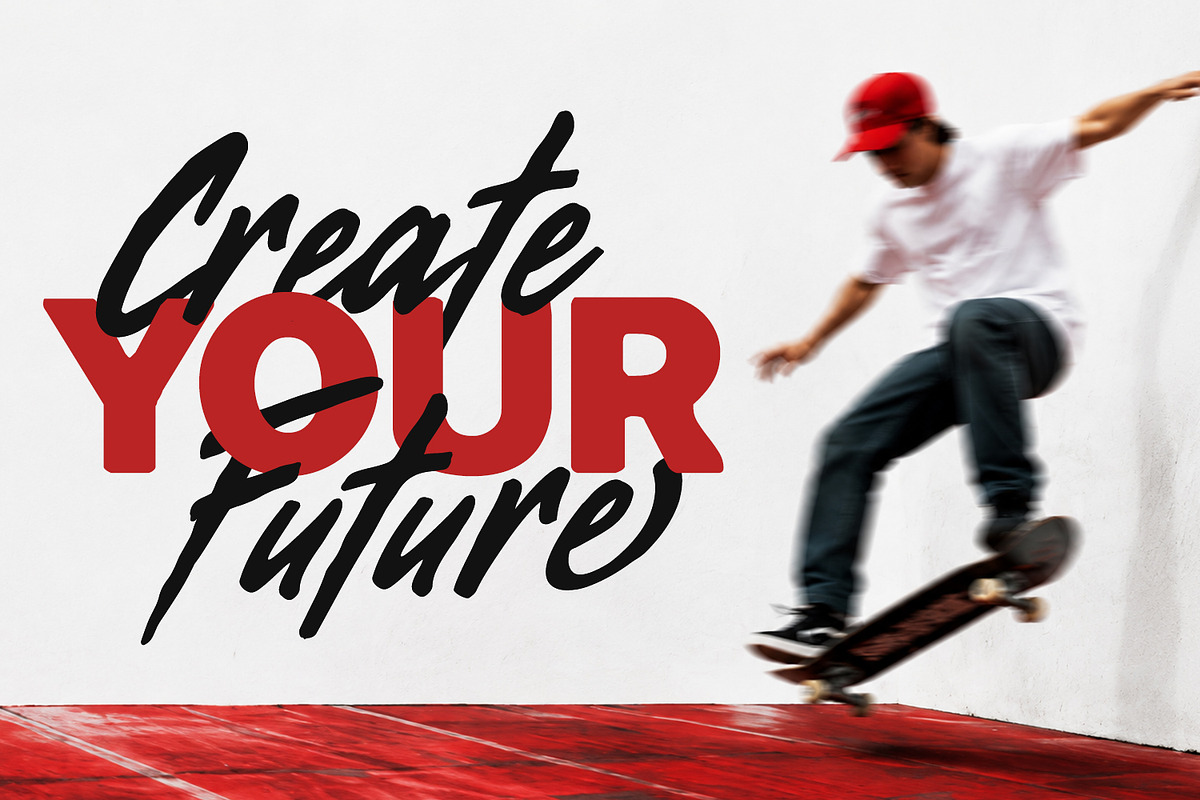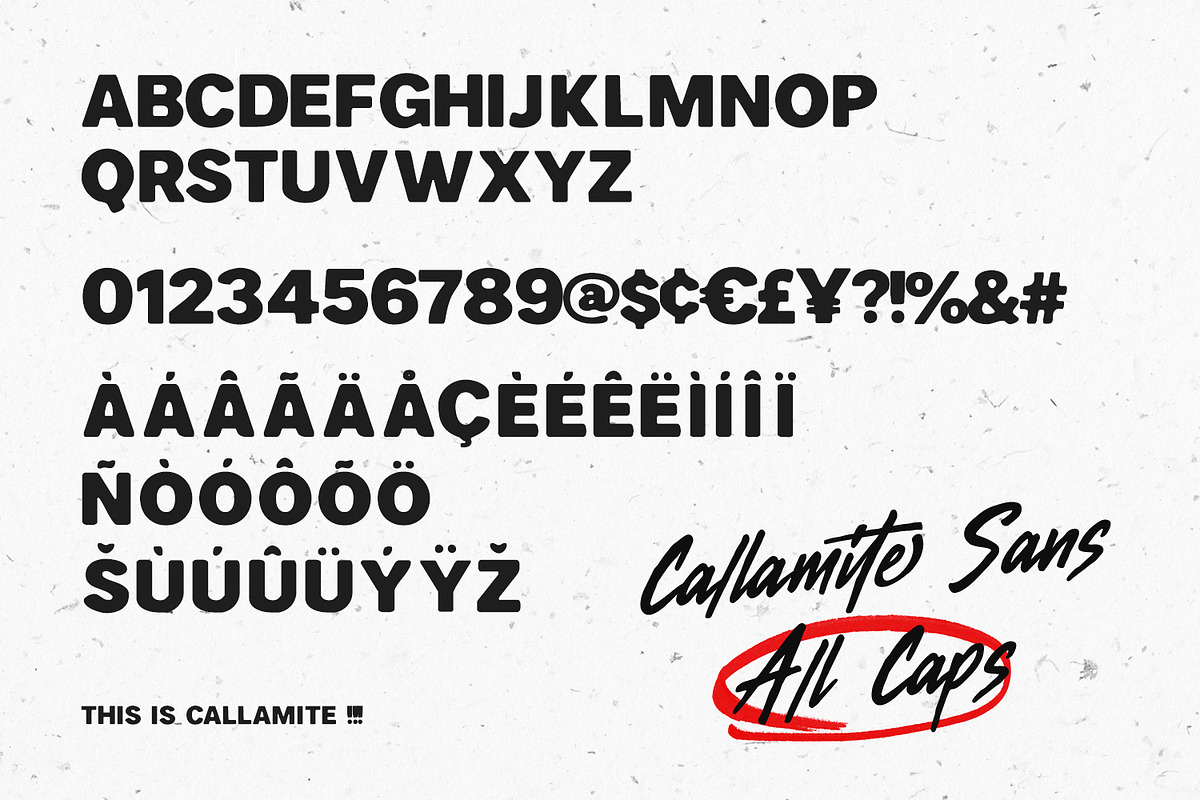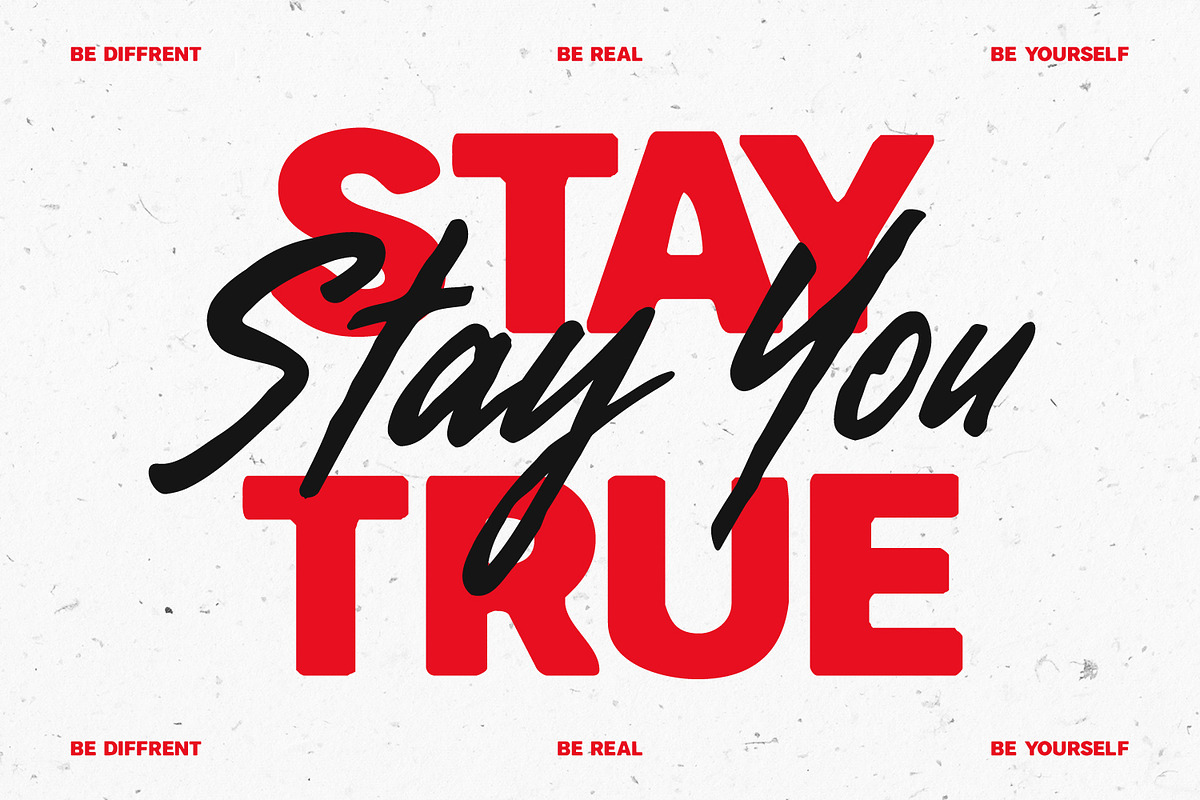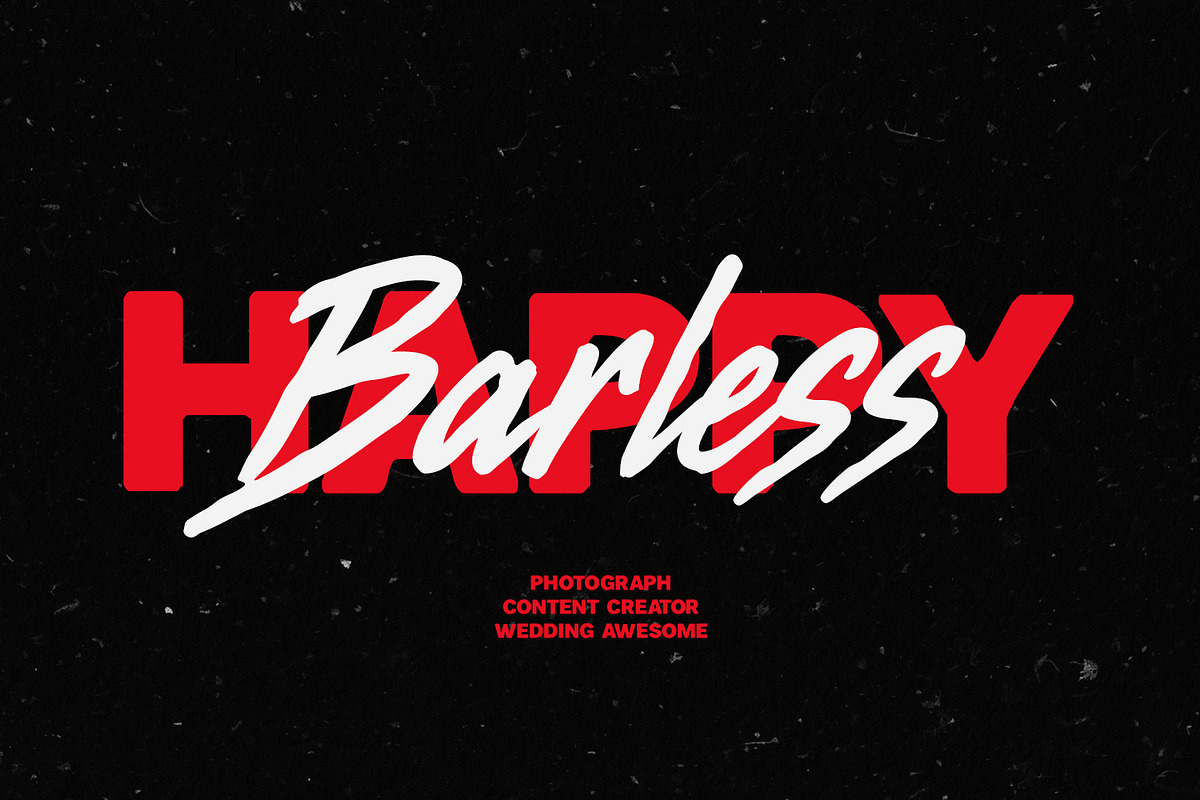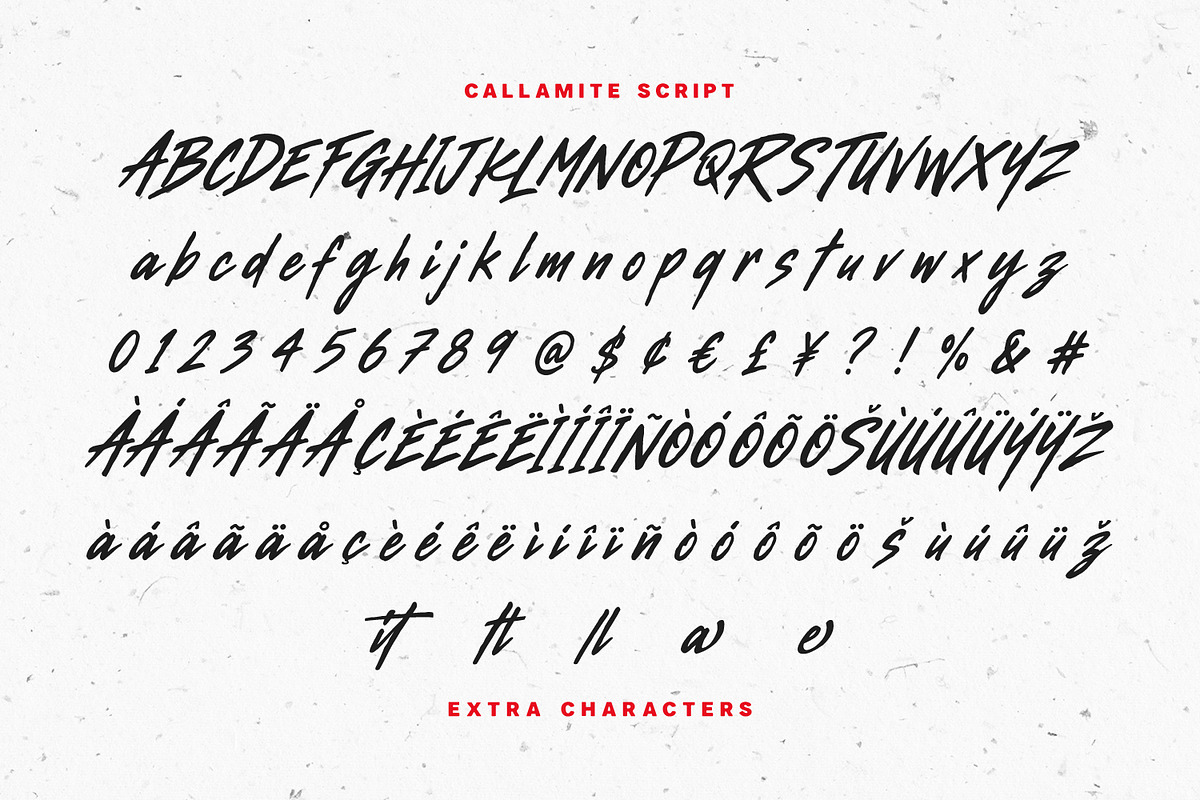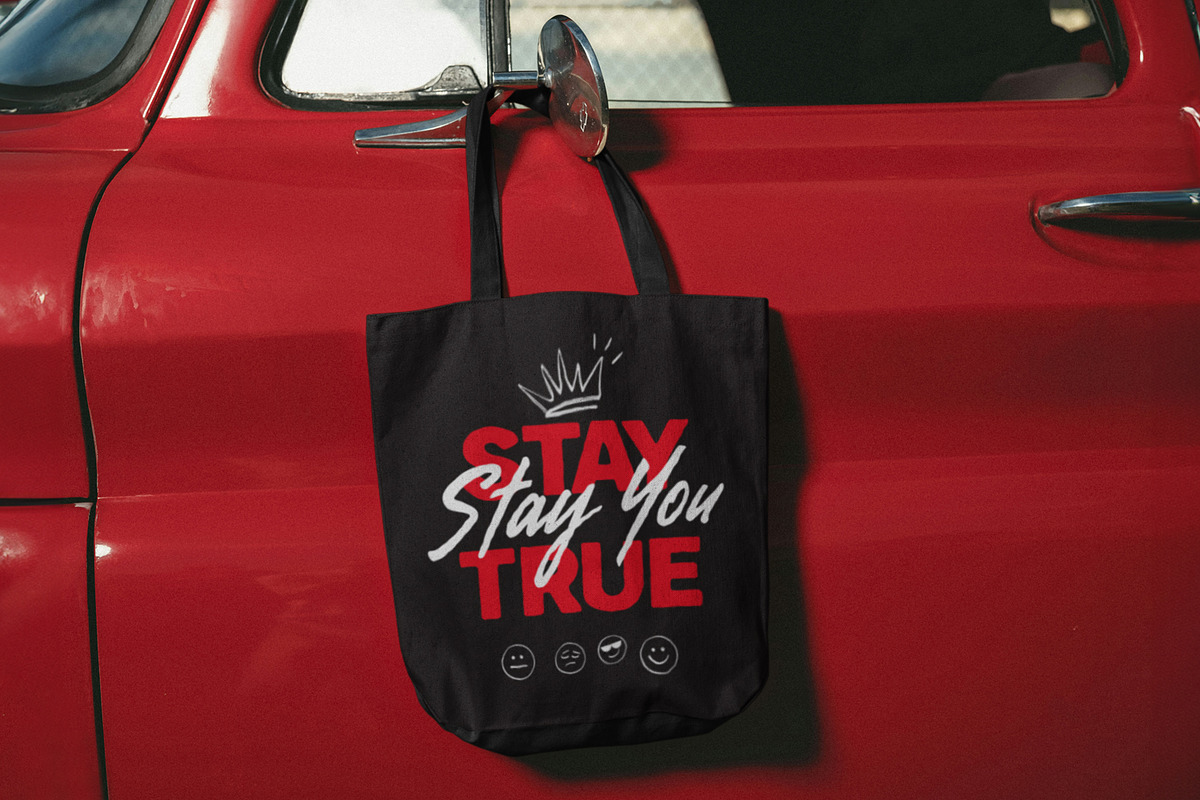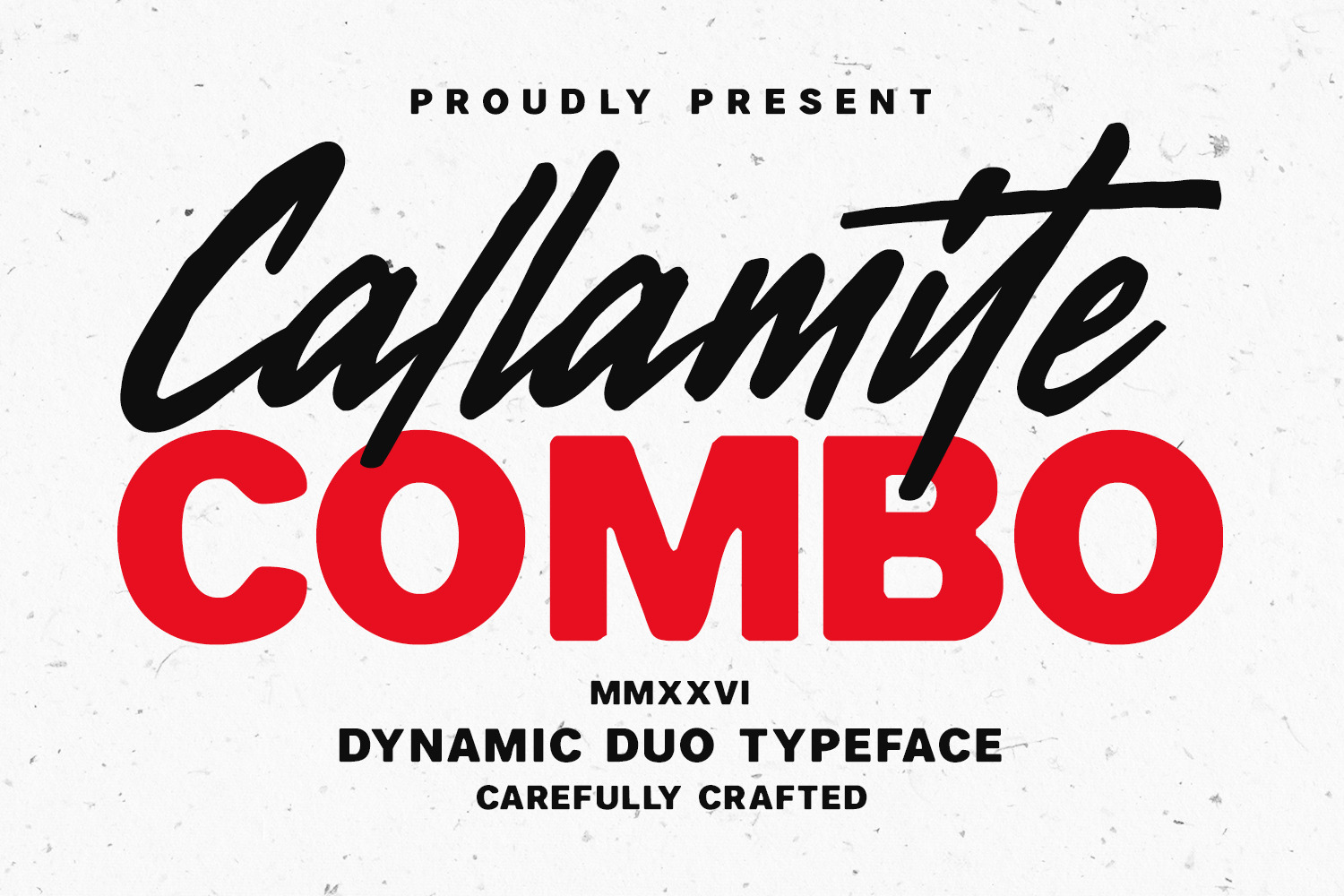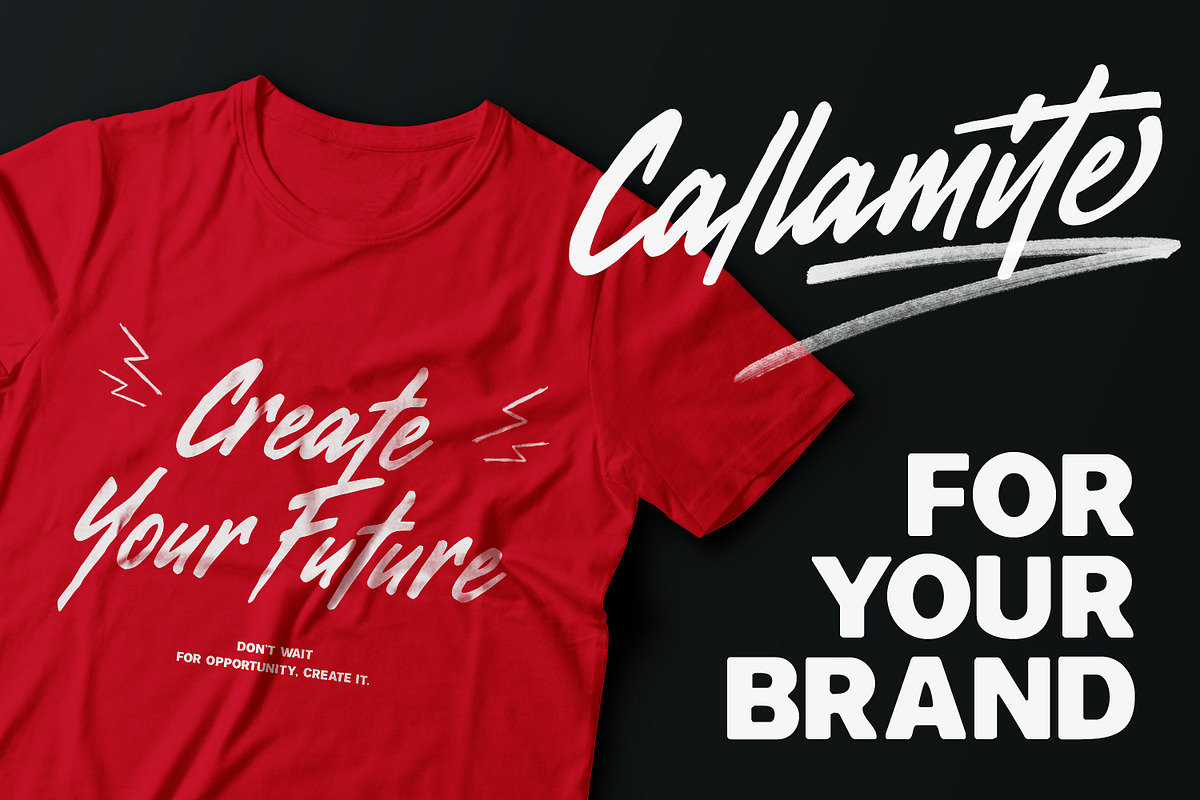
Callamite Combo Dynamic Duo Typeface
Callamite Combo is a versatile typeface duo featuring a fast-paced expressive script alongside a bold, solid sans-serif. The energetic, handcrafted script delivers organic strokes and fluid motion, perfect for expressive headlines, logos, and high-impact branding. Complemented by the sturdy, rounded sans-serif, this font combination creates an instant aesthetic contrast that brings balance and modern energy to creative layouts.
Designed with complete character sets including uppercase, lowercase, numerals, punctuation, multilingual accents, and extra ligatures, Callamite Combo provides seamless pairing for diverse visual compositions. Ideal for poster designs, packaging, social media graphics, merchandise, action sports branding, and editorial layouts, this combination ensures strong visual hierarchy and distinct artistic expression across digital and physical media.
- Alternate and ligature for a natural handwriting flow